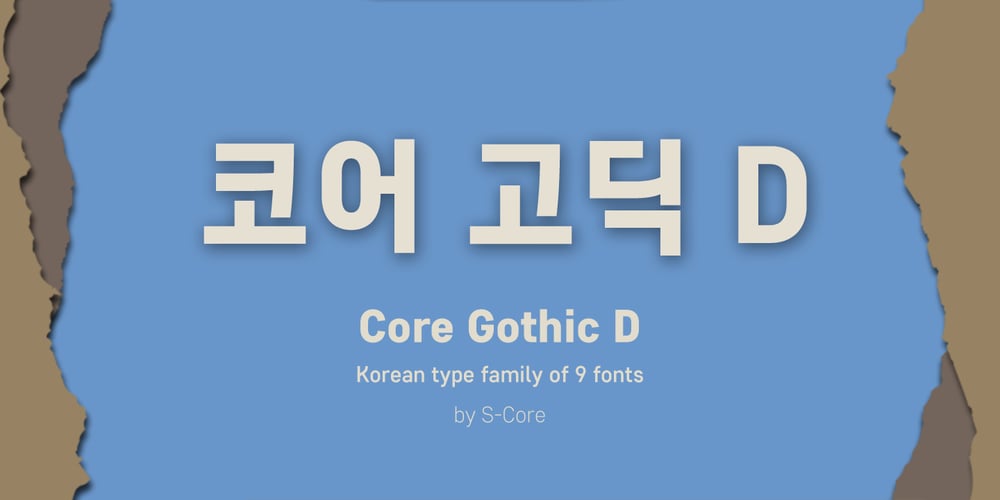
Core Gothic D
Core Gothic D font
Core Gothic D Font Family was designed by Hyun-Seung Lee and published by S-Core. Core Gothic D contains 9 styles and family package options. Core Gothic D is a simple and modern sans-serif Korean font consists of 9 weights (Thin, ExtraLight, Light, Regular, Medium, Bold, ExtraBold, Heavy & Black). Character set is consist of Korean 11,172 characters, Hirakana & Katakana, Latin and Korean symbols. It is well balenced between Korean and Latin characters. Latin typeface (Core Sans D) was adjusted to be matched with korean typeface. Spaces between individual letter forms are adjusted in detail so that it makes perfect typesetting. Supported codepages are MS Windows 1252 Latin1 and MS Windows 949 Korean. We recommend to use for books, web, screen displays and so on.